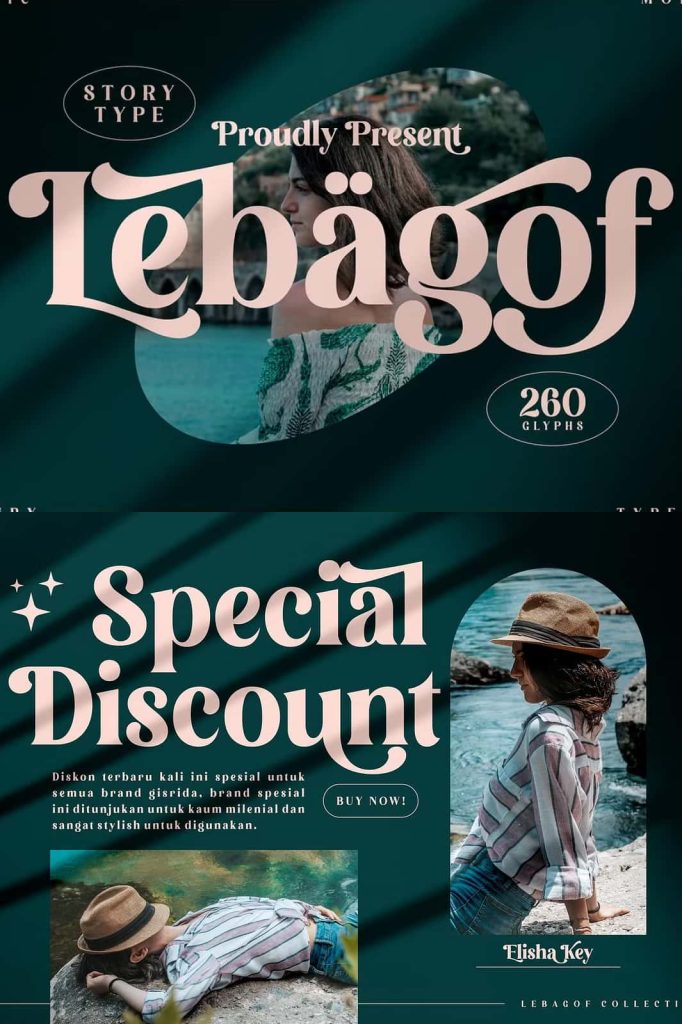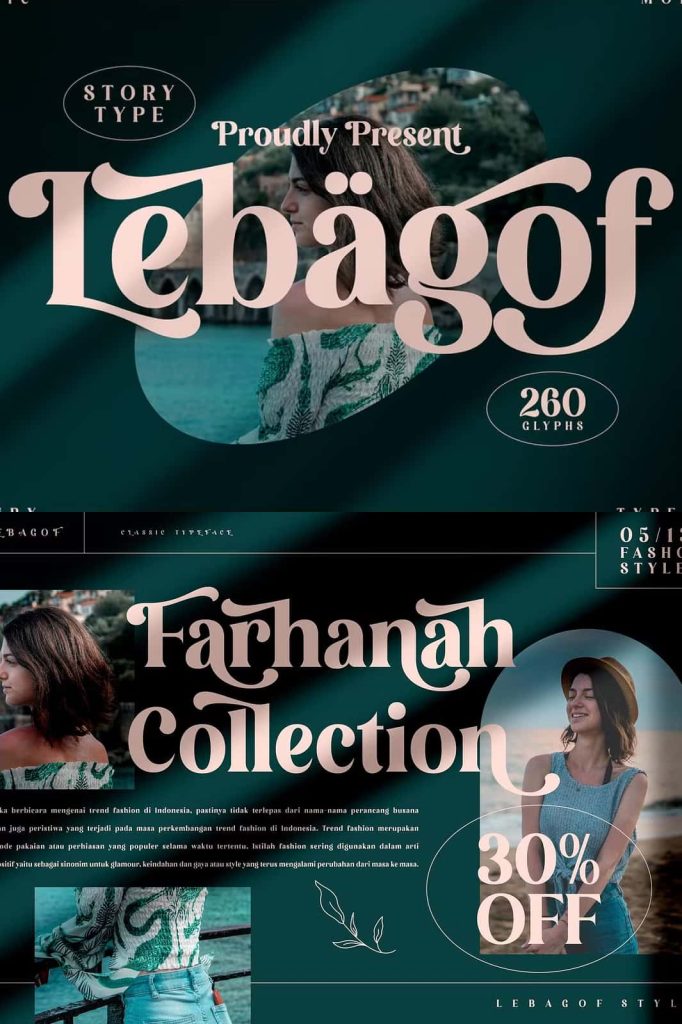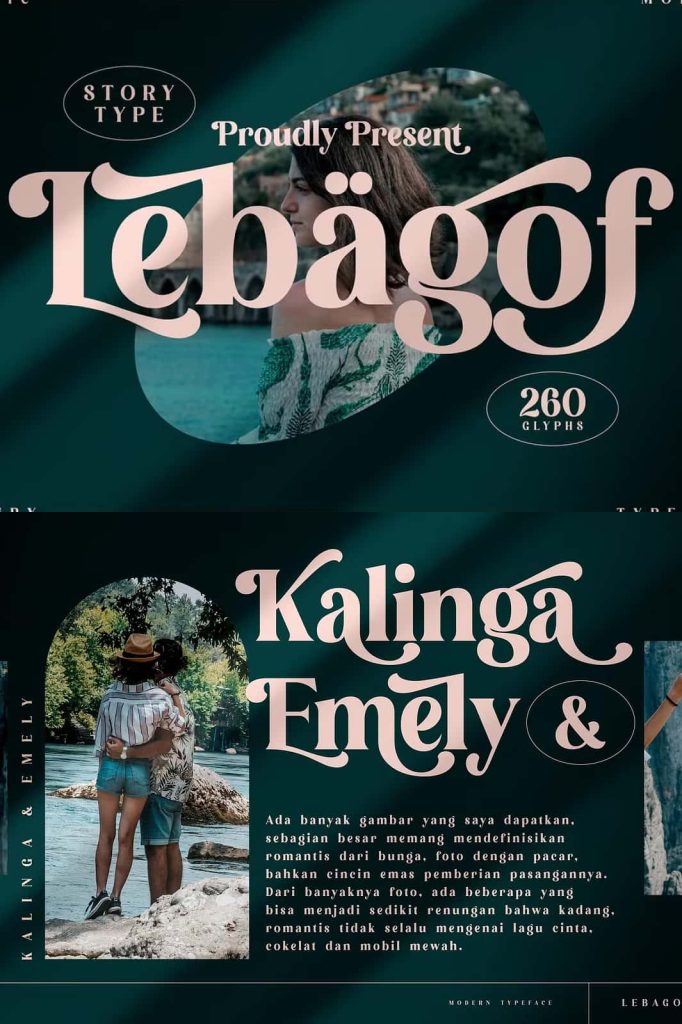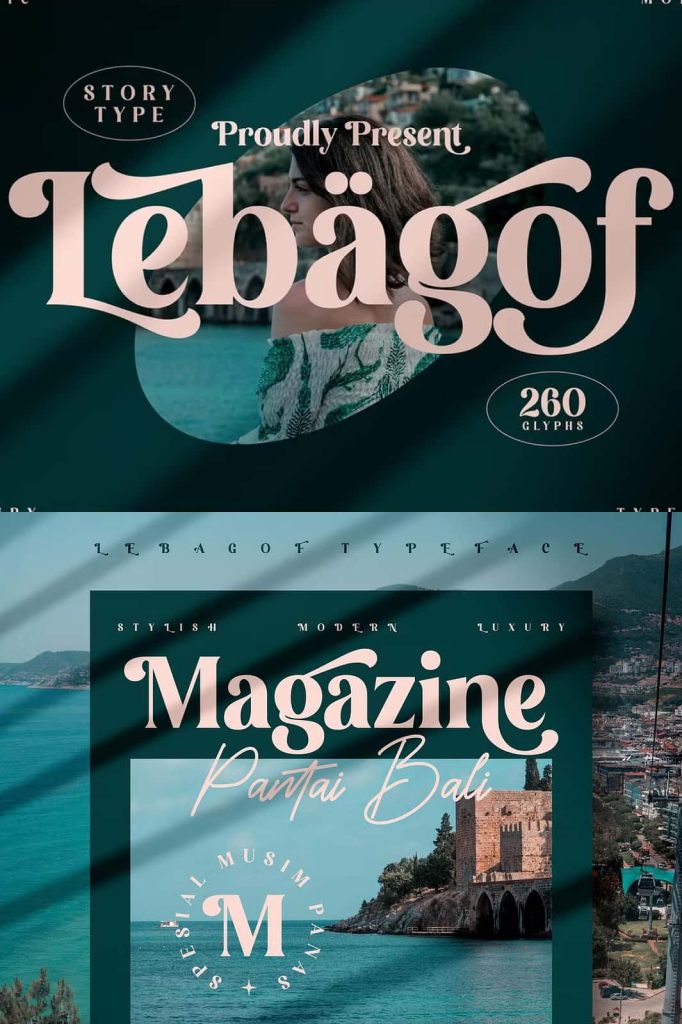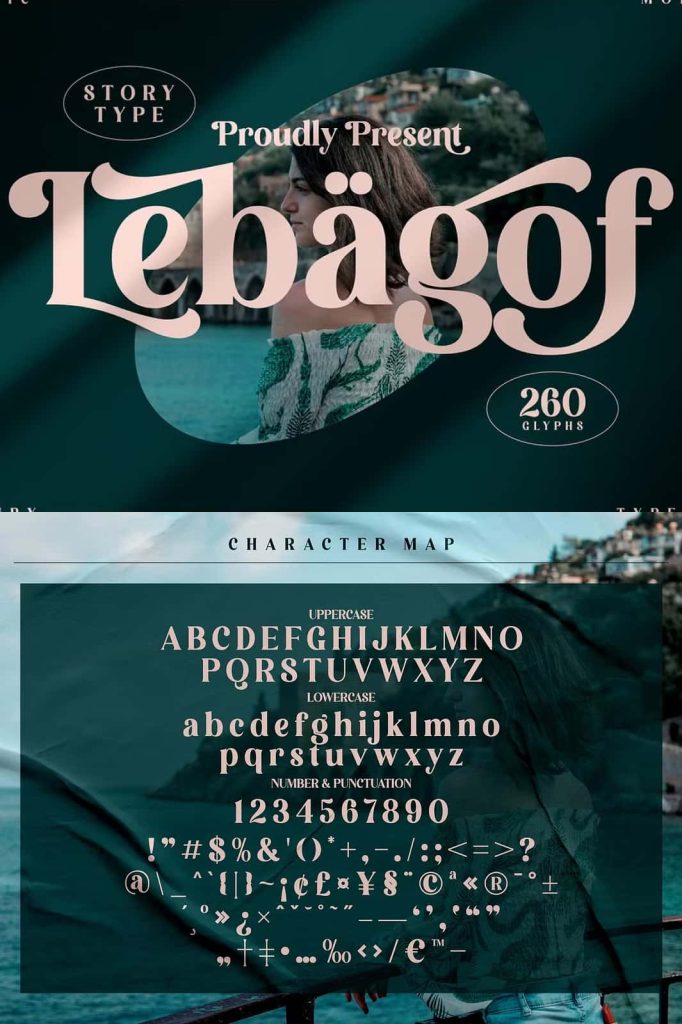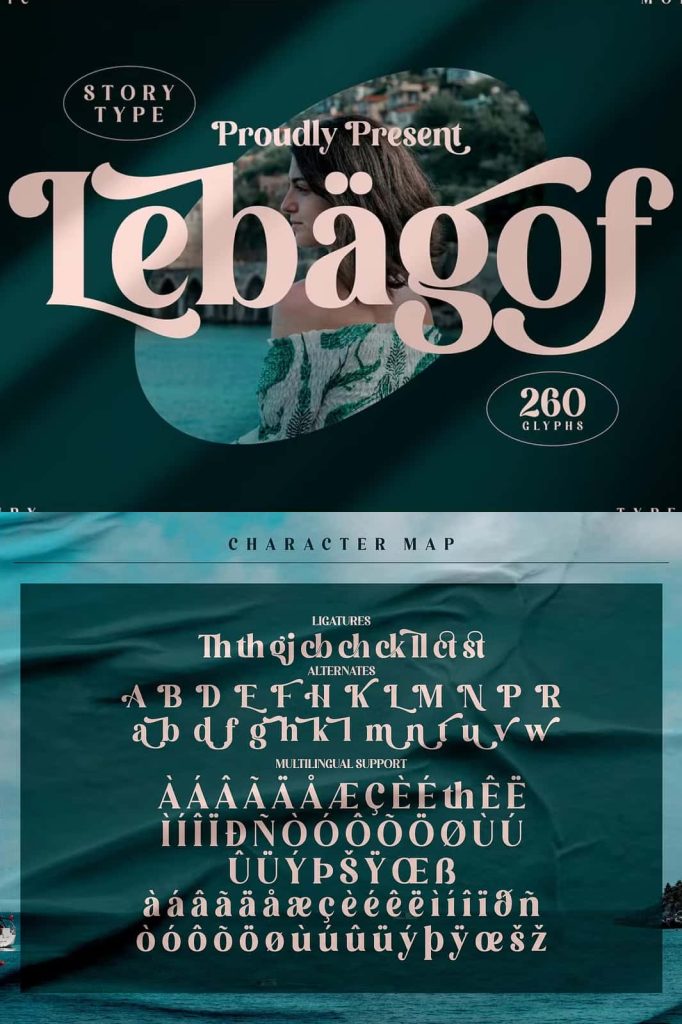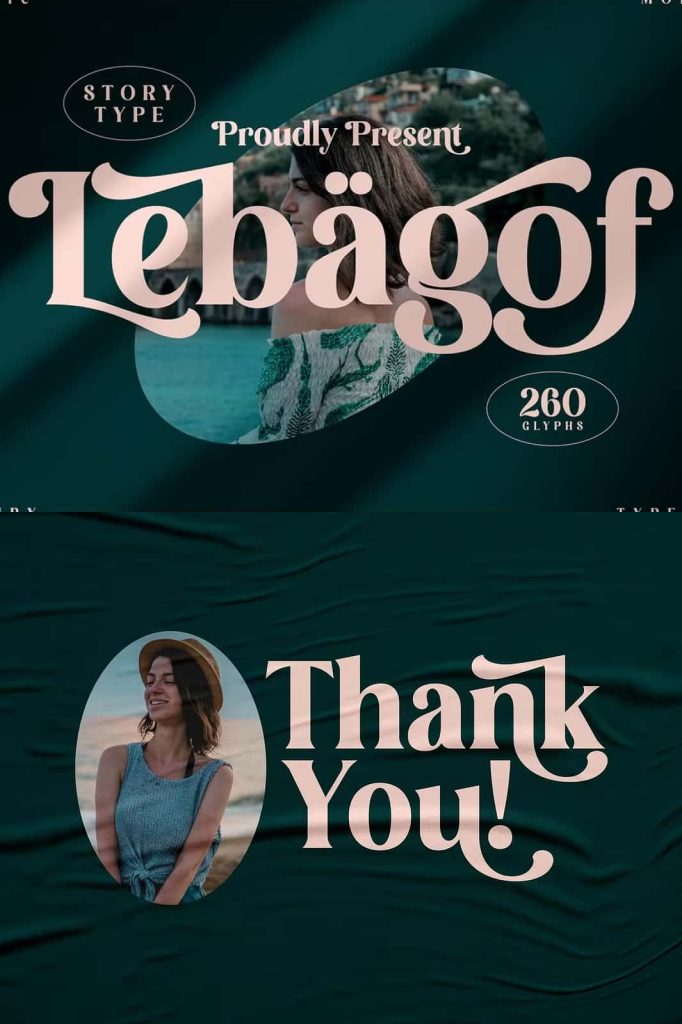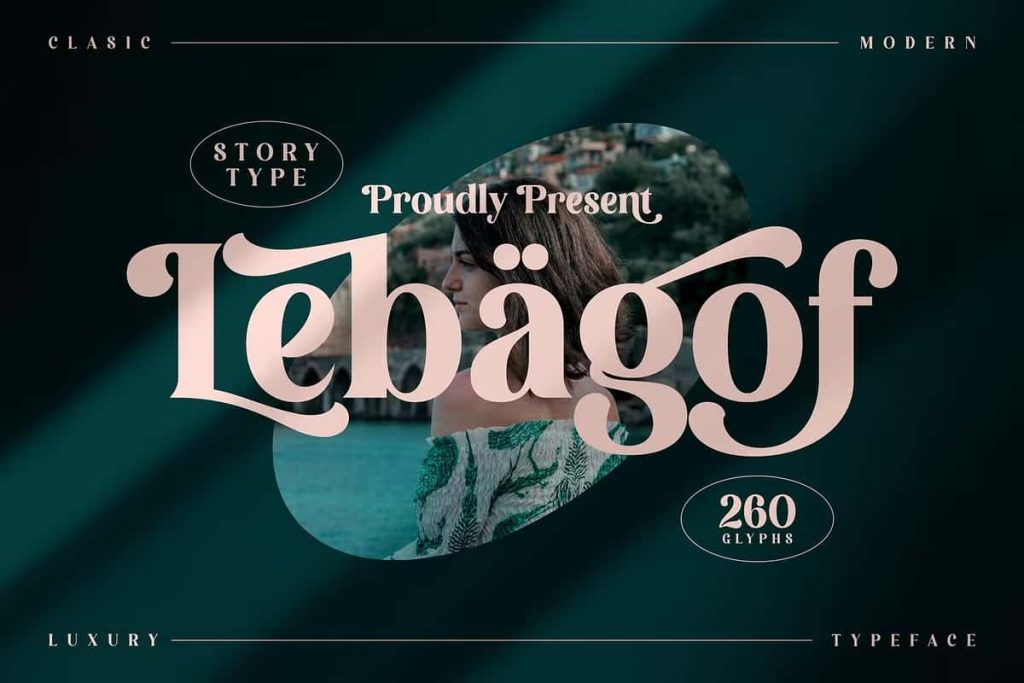
Lebagof Modern Serif FontleastedJanuary 11, 2025Fonts Proudly present Lebagof Typeface, created by Storytype, A serif modern bold typeface that has own unique style & modern look. Download